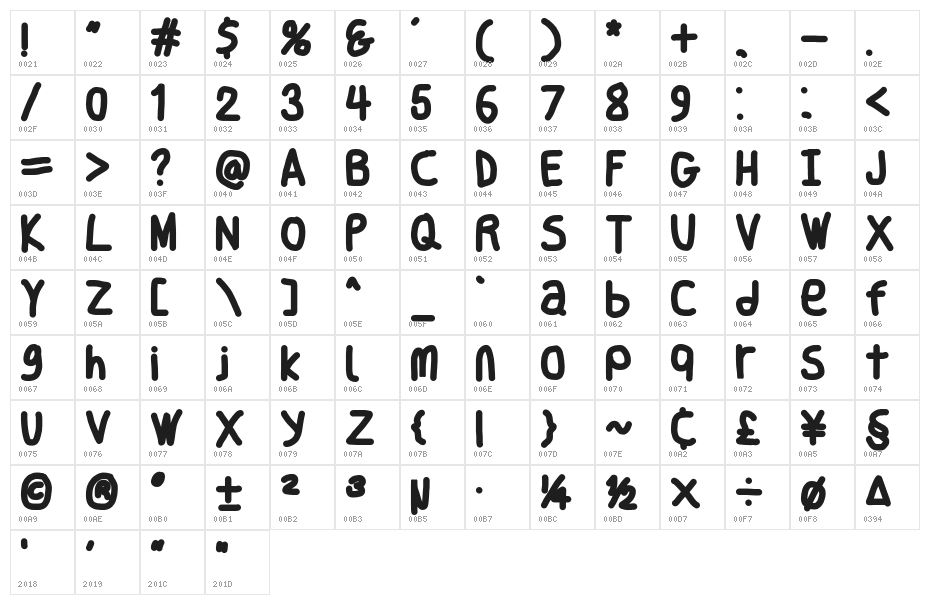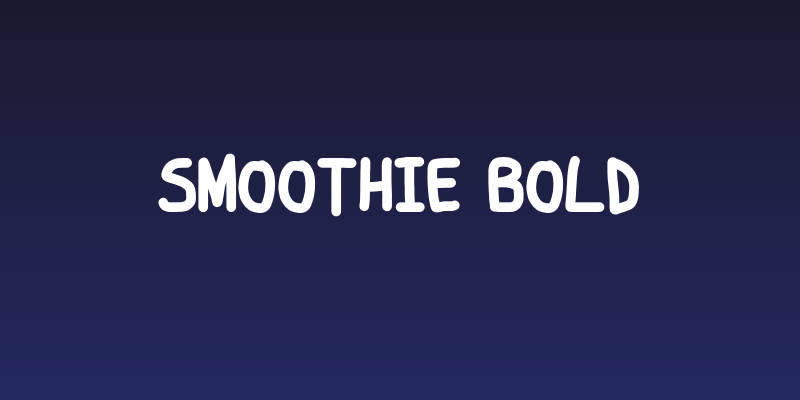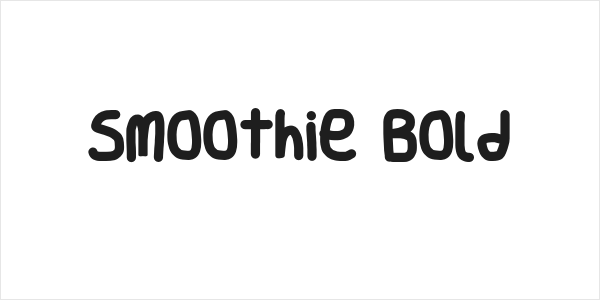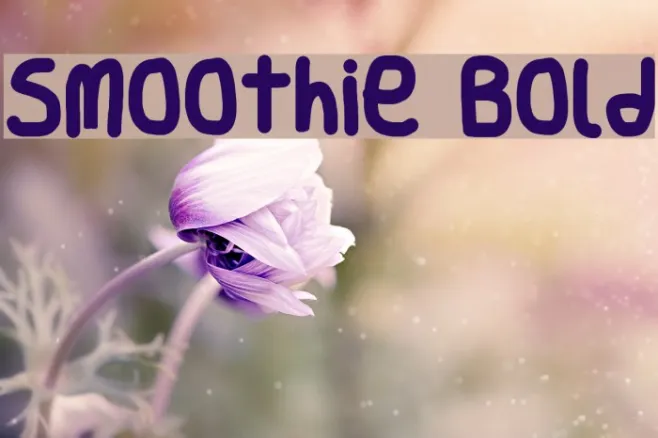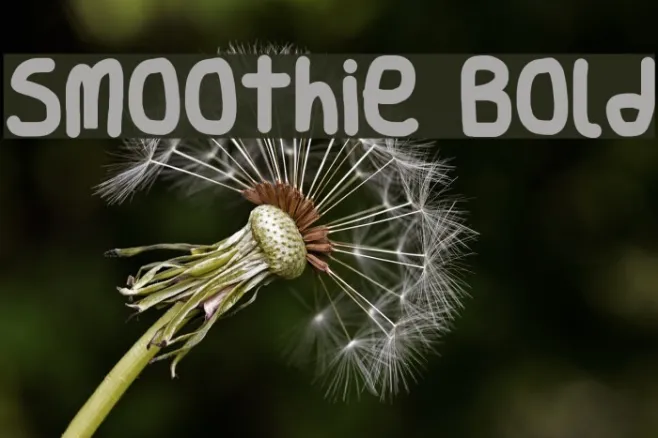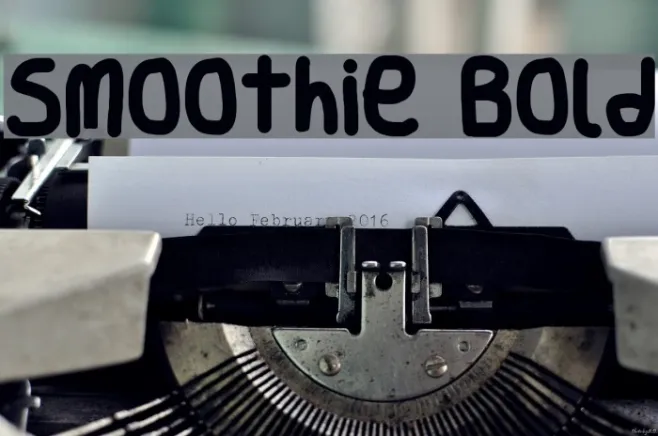
Smoothie Bold Font
Smoothie Bold Description
This font features a bold, playful style with rounded edges and a hand-drawn appearance. The characters are thick and uniform, providing a sense of warmth and approachability. The uppercase and lowercase letters maintain a consistent weight, contributing to a cohesive look. The numbers and special characters follow the same design principles, ensuring versatility across different uses. The overall design is informal and friendly, making it suitable for projects that require a casual and inviting tone.
| Proposed Projects | Ideal for children's books, playful branding, casual invitations, and social media graphics. |